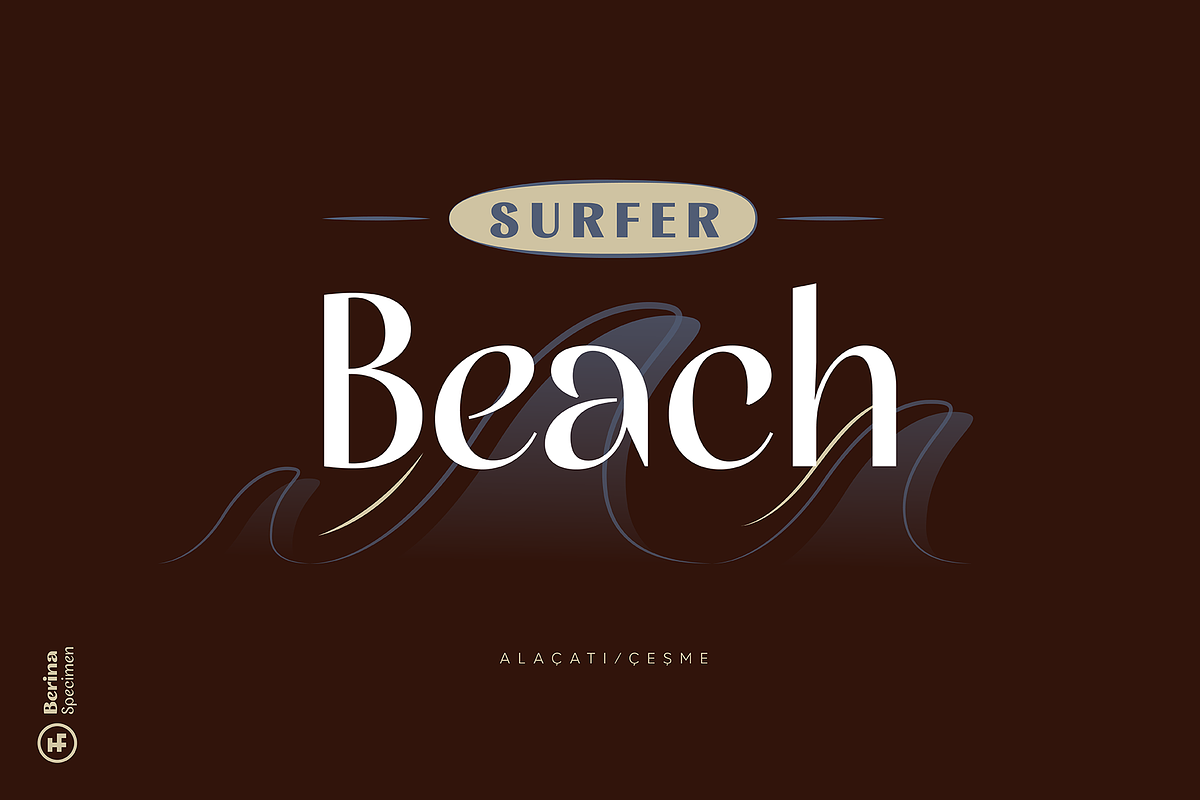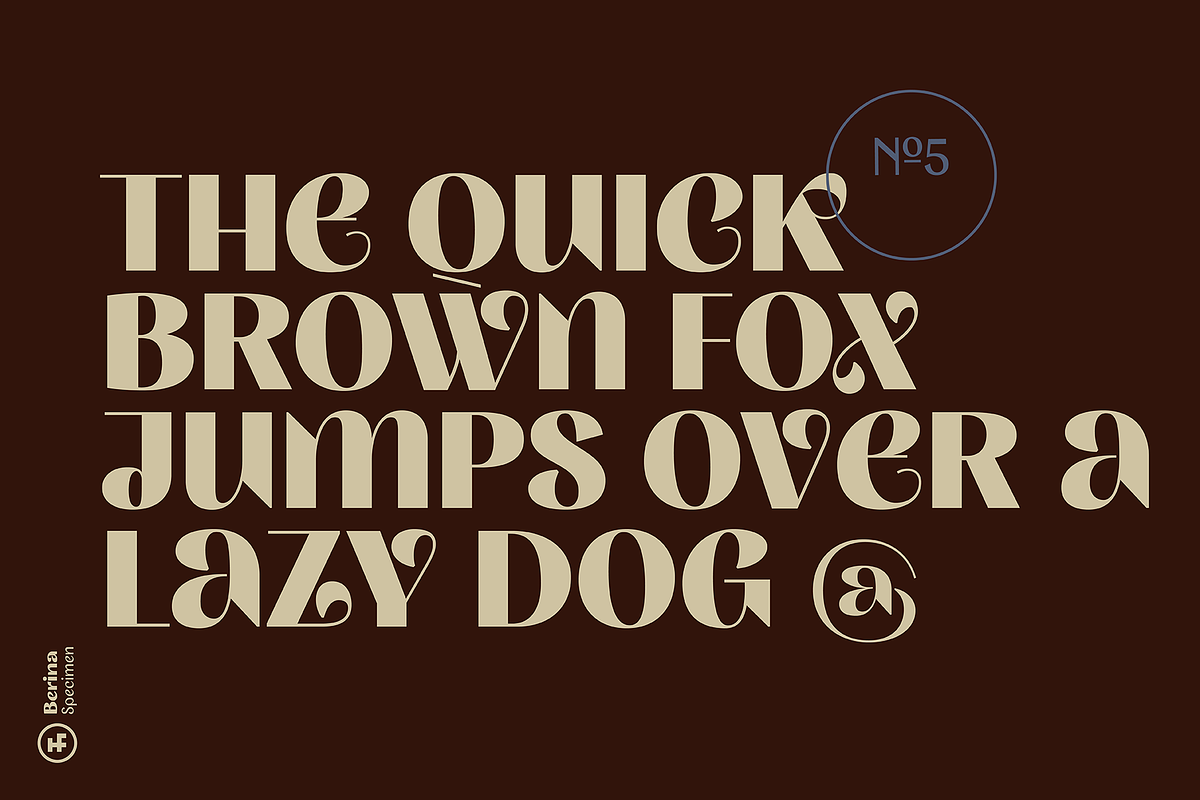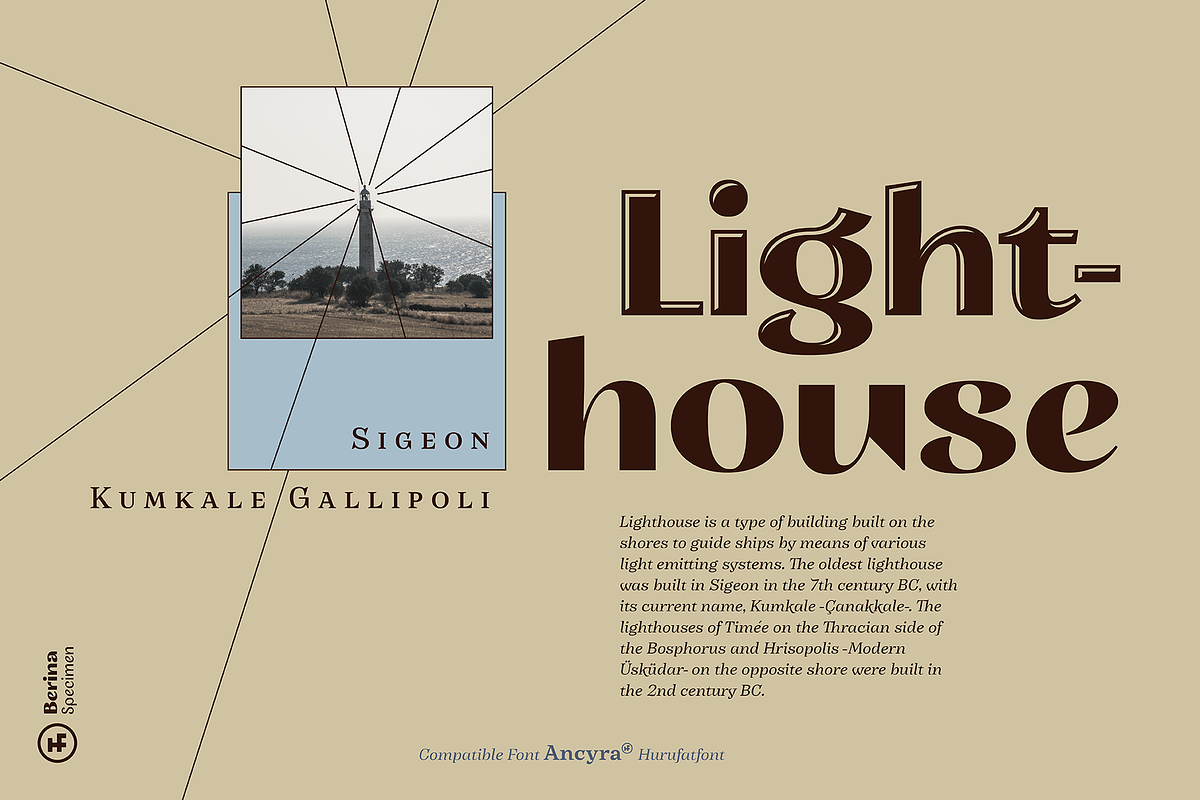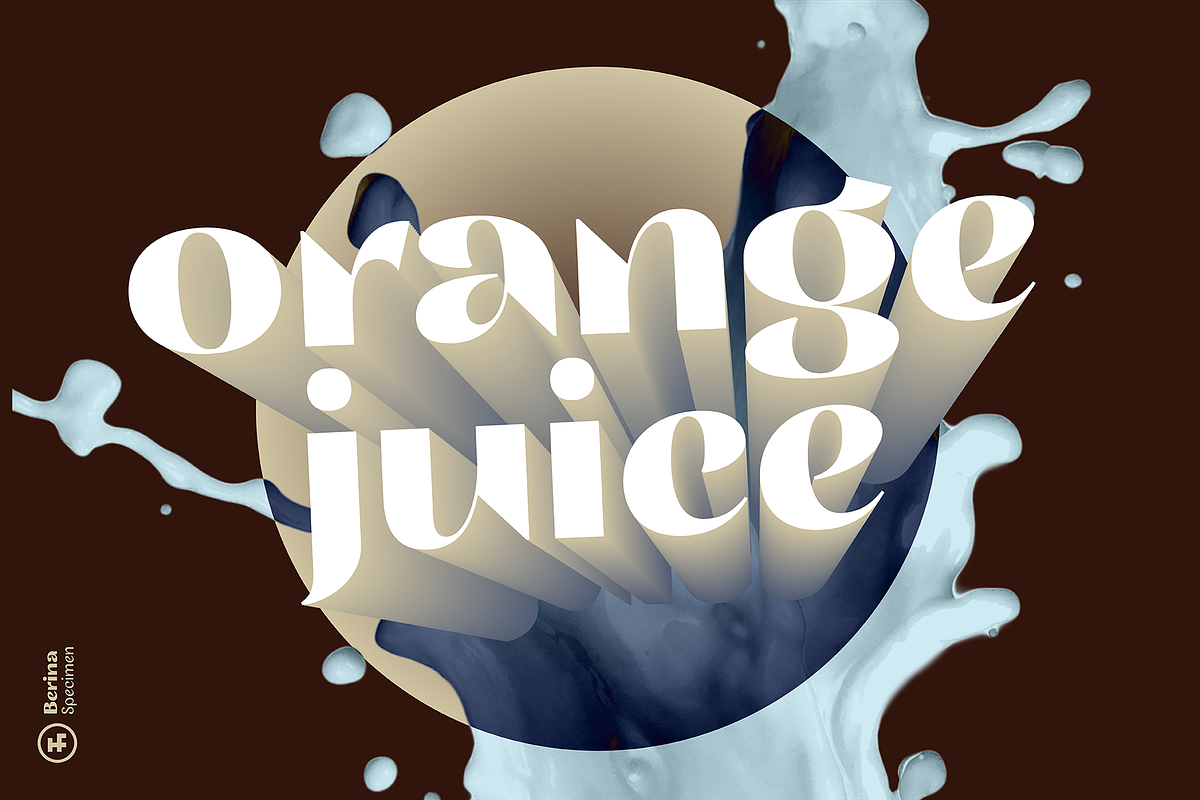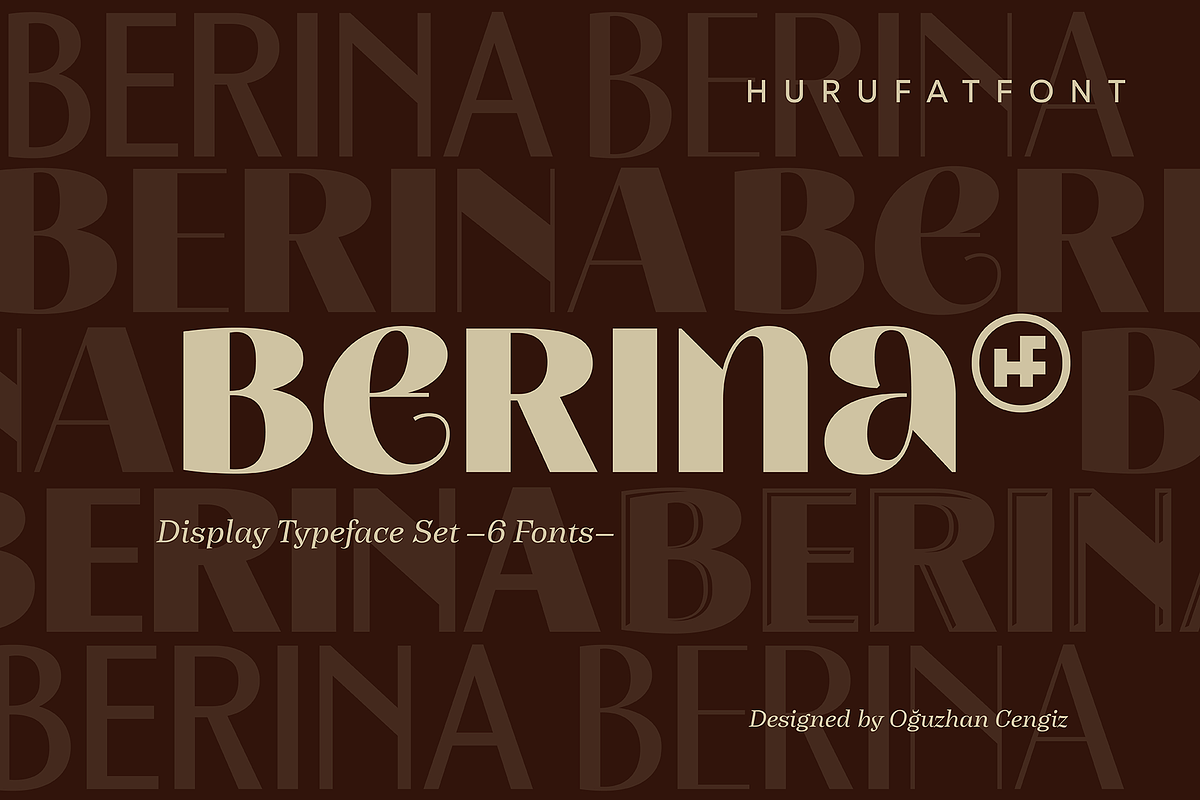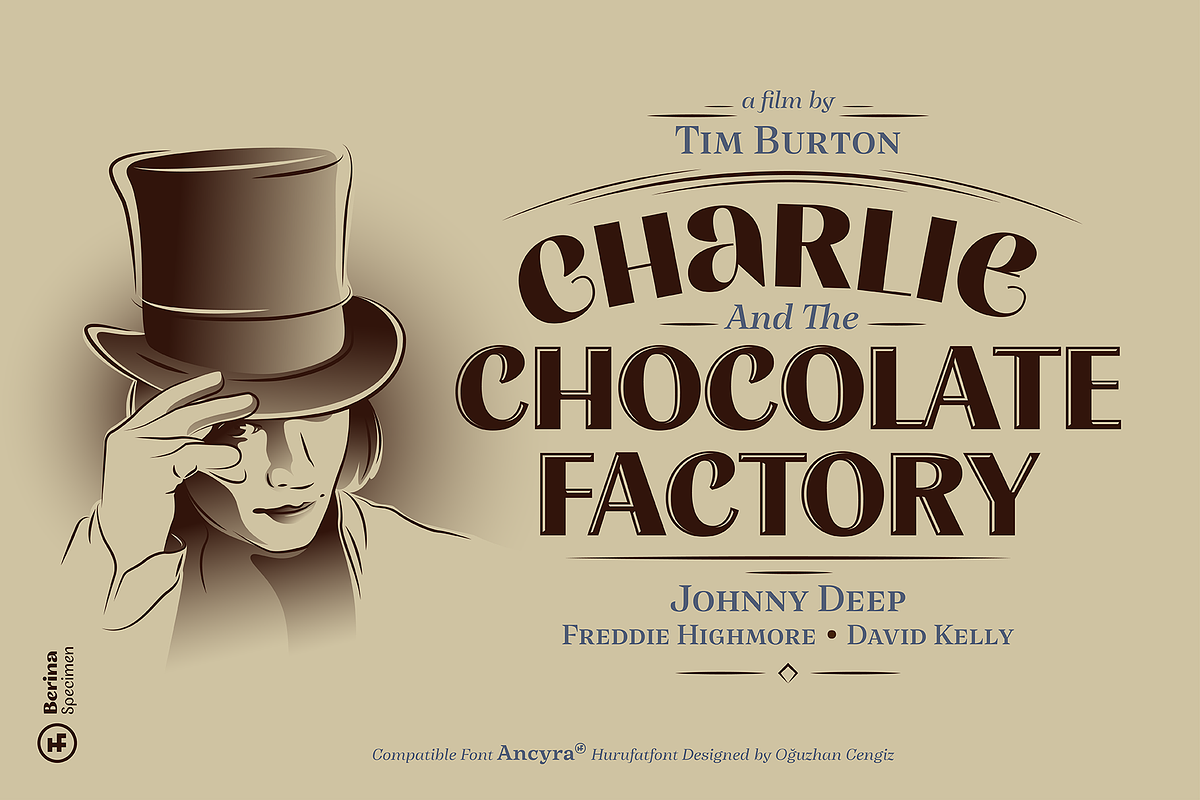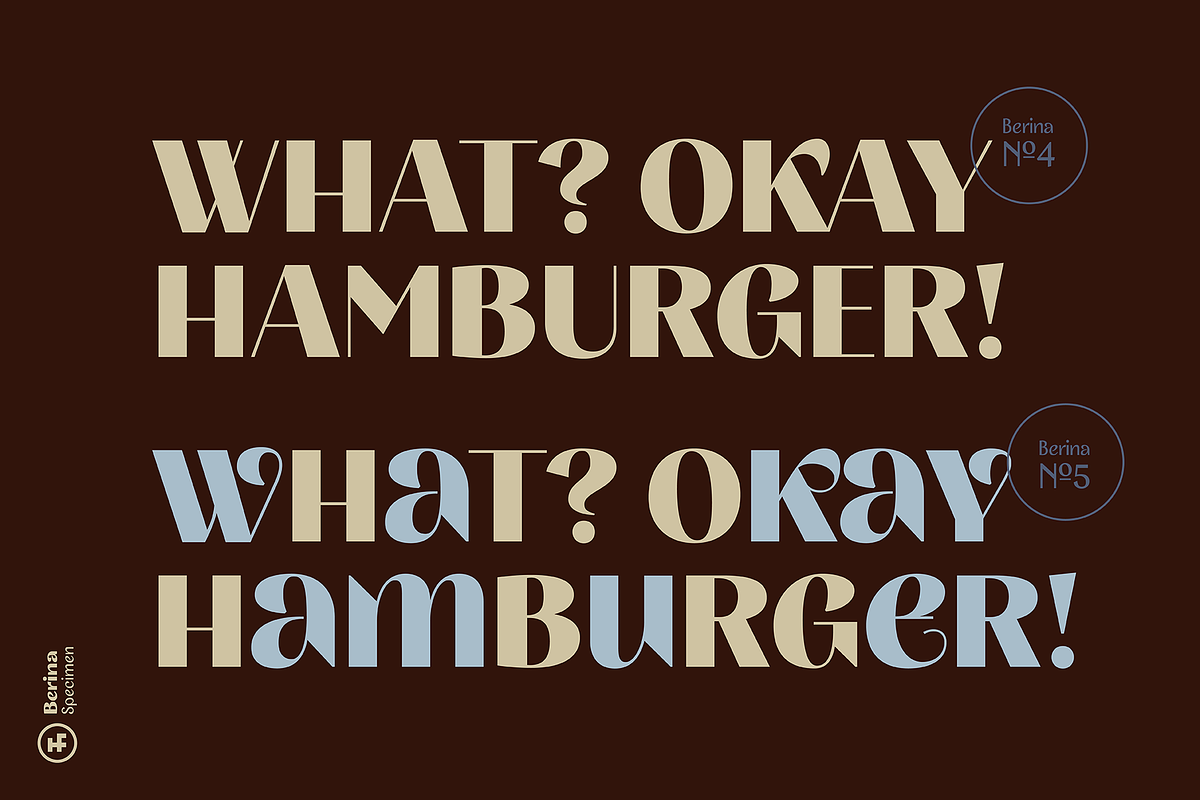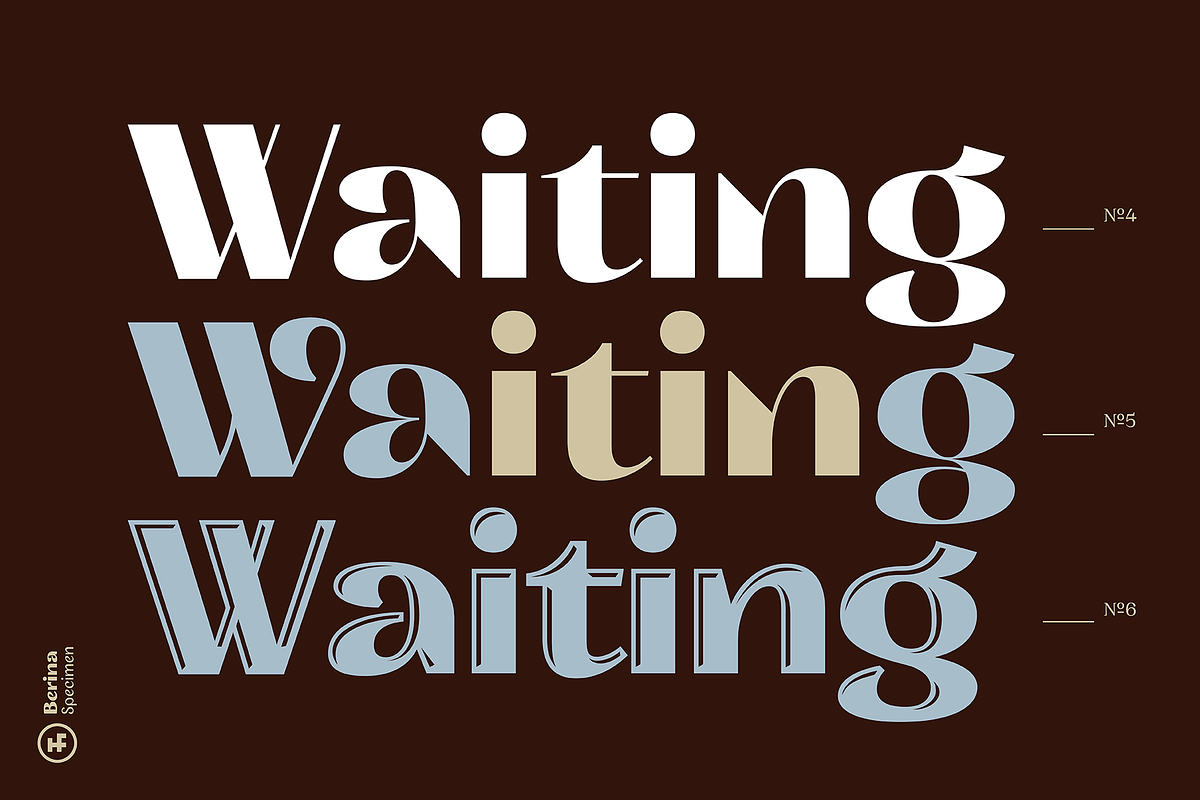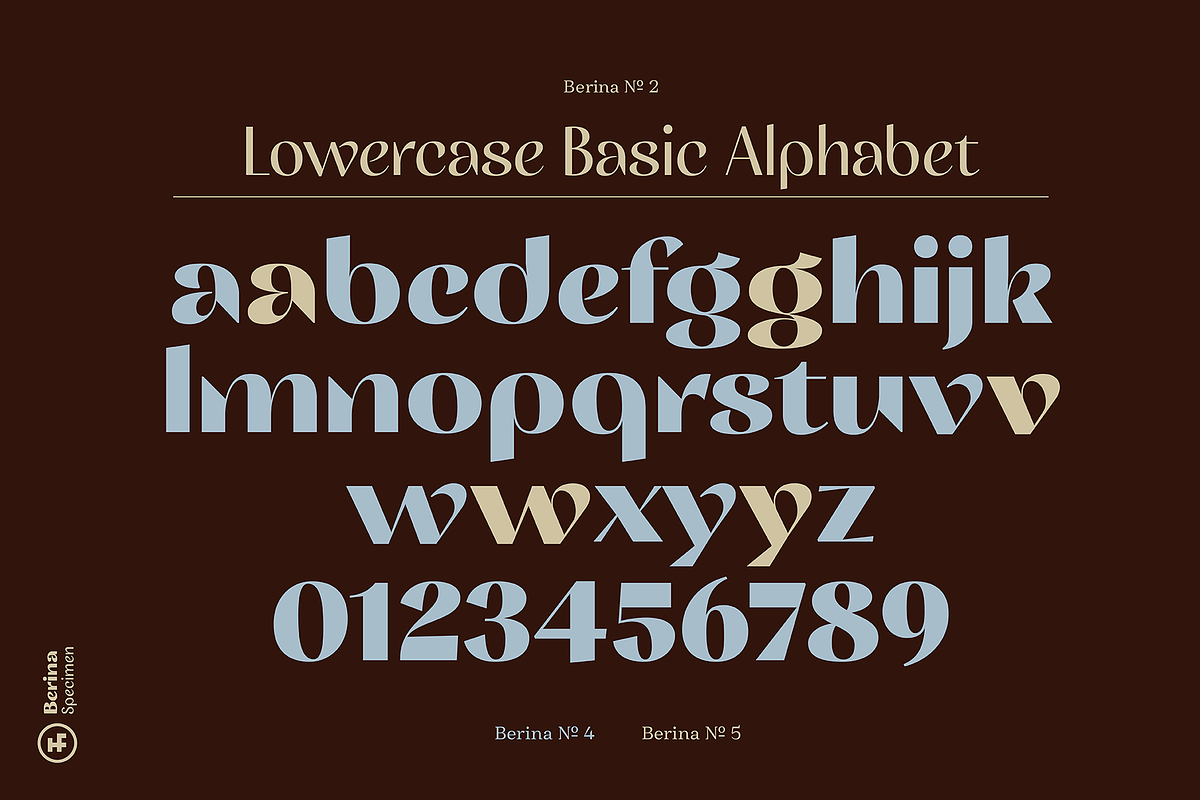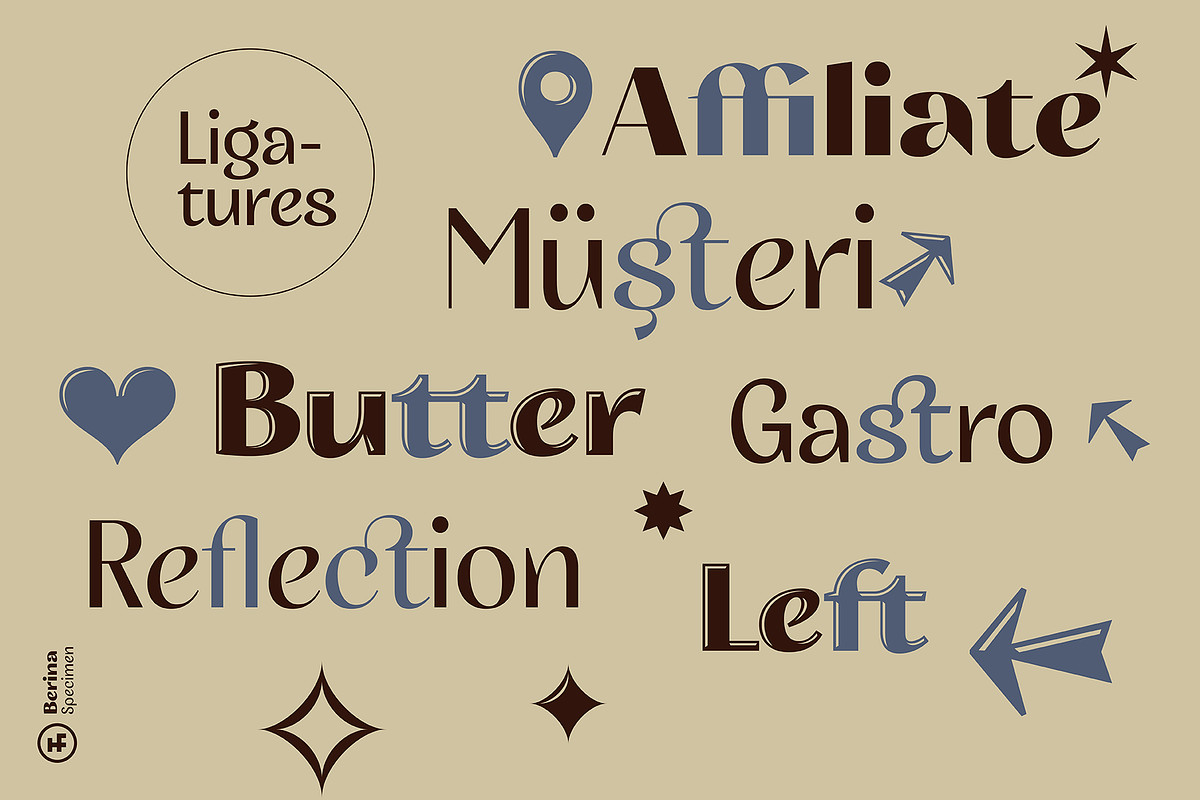
Berina Display
Berina; It is inspired by the contrast and elegance of the texts on the handcrafted posters. It has a wide usage area with 6 different versions. Ideal for creative work in industries such as packaging, branding, textiles. It is user friendly with arrows, ornaments and rich opentype features. Any Questions? Just ask!